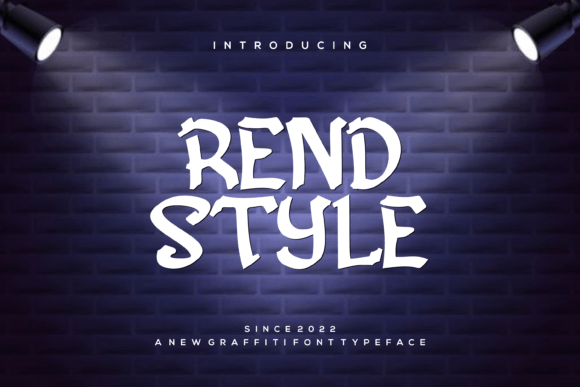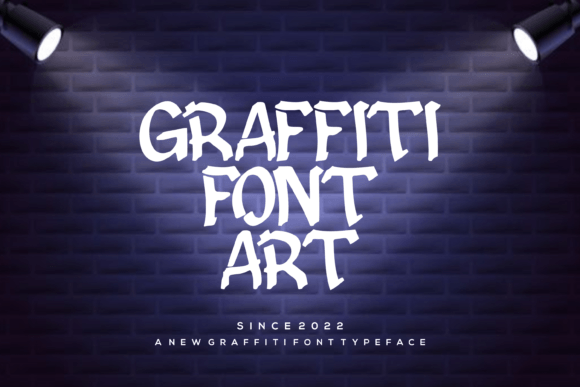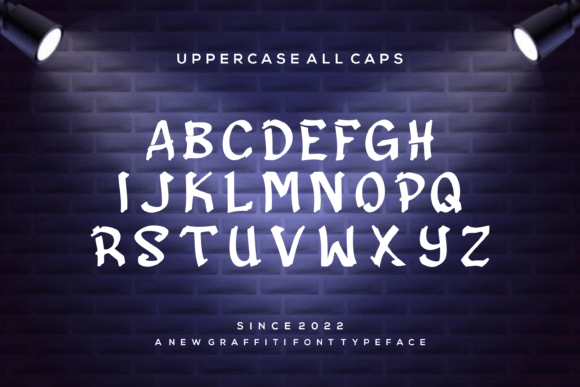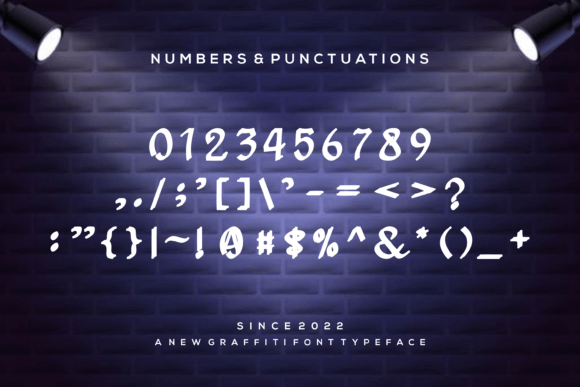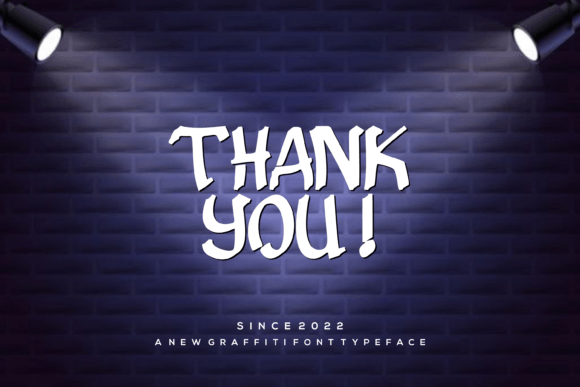
Rendstyle
RendStyle: A Modern and Interesting Slab Serif Font
RendStyle is a slab serif font that combines modern appeal with interesting design elements. This versatile typeface is perfect for designers seeking to create charming, contemporary looks while maintaining visual interest. Furthermore, it offers a fresh take on slab serif design that stays relevant in today’s design landscape.
Key Features of RendStyle
• Modern Design: Offers a contemporary and fresh look.
• Interesting Details: Features unique elements that catch the eye.
• Charming Style: Brings an appealing personality to designs.
• Versatile Use: Works well for various modern applications.
Best Uses for RendStyle
Thanks to its modern characteristics, RendStyle works especially well for:
When using RendStyle in your designs, keep these tips in mind:
• Try it for headlines or short text to show off its modern style.
• Use different sizes to highlight its interesting features.
• Pair with simpler fonts for body text to create balance.
• Let its charming personality shine in contemporary layouts.
To sum up, RendStyle is an excellent choice for designers seeking a modern and interesting slab serif font. Its ability to balance contemporary appeal with unique design elements makes it stand out in today’s typography landscape. Whether you’re creating digital content, developing branding materials, or designing modern marketing pieces, RendStyle offers the perfect mix of charm and relevance.
Furthermore, RendStyle’s distinctive design allows it to shine in contexts where modern appeal is key. For instance, from website designs to social media graphics, this font can lift your projects with its fresh style. Also, its interesting yet readable appearance works particularly well in designs that aim to make a contemporary impact.
In conclusion, RendStyle truly captures the essence of modern design in slab serif typography. Its versatility across different applications shows how well it can serve various creative needs. Therefore, for those wanting to add a touch of contemporary charm to their work, RendStyle can enhance any design with its unique style. Ultimately, it’s perfect for designers aiming to make an interesting, modern impact across creative projects.